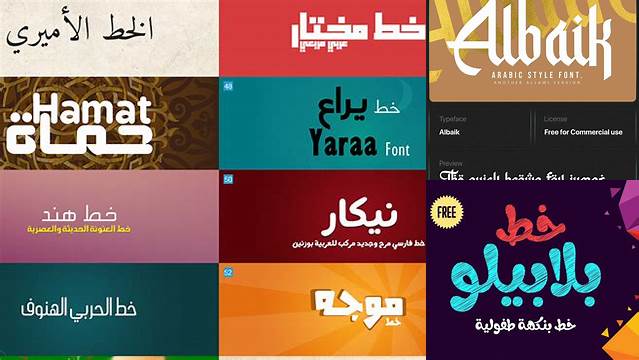
Best Arabic Fonts Pack Free Download
Hey guys! Are you looking to spice up your designs with some beautiful Arabic fonts? You've come to the right place! In this article, we'll dive into the world of best Arabic font pack free download, exploring everything from classic styles to modern twists, and how you can get your hands on them without spending a dime. Whether you're a seasoned designer or just starting out, having a great collection of Arabic fonts is essential for creating stunning visuals. So, let’s jump right in and discover the best Arabic font packs you can download for free!
1. Classic Arabic Font Styles for Free
If you're aiming for a timeless and elegant look, classic Arabic fonts are the way to go. These fonts often draw inspiration from traditional calligraphy, giving your designs a touch of authenticity and sophistication. Think of styles like Naskh, Thuluth, and Kufic – these are the classic Arabic fonts that have stood the test of time. For instance, Naskh is known for its readability and is commonly used in books and newspapers. Thuluth, on the other hand, is more ornate and often used in decorative contexts like mosque inscriptions. Kufic, with its bold and angular strokes, brings a historical and authoritative feel to any project. Finding a pack that includes these styles ensures you're equipped with the best Arabic fonts for a variety of traditional applications. Free downloads of these font packs can be a goldmine, offering a range of weights and styles within each typeface, perfect for everything from formal invitations to branding materials. Remember, the key is to use these fonts thoughtfully, considering the context and message you want to convey. They're not just about aesthetics; they're about paying homage to a rich cultural heritage. So, explore these classic Arabic fonts and let your creativity flow!
2. Modern Arabic Fonts Free Download Options
For those who lean towards contemporary design, modern Arabic fonts offer a sleek and innovative aesthetic. These fonts often blend traditional Arabic calligraphy with modern design principles, resulting in typefaces that are both stylish and functional. When looking for modern Arabic fonts free download options, you'll encounter a wide range of styles, from minimalist sans-serifs to bold and geometric designs. These fonts are perfect for branding, web design, and any project that requires a fresh, contemporary feel. Imagine using a clean, sans-serif Arabic font for a tech startup's logo or a bold, geometric font for a poster promoting a music event. The possibilities are endless! The beauty of modern Arabic fonts lies in their versatility. They can be adapted to suit various design contexts, making them a valuable addition to any designer's toolkit. Many websites offer free font packs that include a selection of modern Arabic fonts, so it's worth exploring your options. Just be sure to check the licensing terms to ensure you can use the fonts for your intended purposes. So, go ahead and dive into the world of modern Arabic fonts and discover the perfect typeface to elevate your designs!
3. Best Arabic Calligraphy Fonts Free
Arabic calligraphy is an art form in itself, and incorporating calligraphy fonts into your designs can add a touch of elegance and artistry. The best Arabic calligraphy fonts free to download often emulate the fluid strokes and intricate details of traditional calligraphy styles like Diwani and Ruq'ah. Diwani, known for its curved lines and dramatic flourishes, is perfect for creating a sense of grandeur and sophistication. Ruq'ah, on the other hand, is more condensed and practical, often used for handwriting and everyday communication. When you download a font pack that includes Arabic calligraphy fonts, you're essentially getting a piece of art that you can use in your projects. These fonts are ideal for invitations, certificates, and any design where you want to convey a sense of tradition and beauty. However, it's important to use calligraphy fonts judiciously. Overusing them can make your design look cluttered or overwhelming. Instead, try using them sparingly, perhaps for headings or decorative elements, to create a focal point and add visual interest. Finding the best Arabic calligraphy fonts can be a game-changer for your designs, adding a unique and artistic flair that sets your work apart. So, start exploring and see how these fonts can transform your projects!
5. How to Identify High-Quality Free Arabic Fonts
Not all free fonts are created equal, guys. To ensure your designs look professional, it's crucial to identify high-quality free Arabic fonts. Look for fonts that have consistent letterforms, proper kerning (the spacing between letters), and a full character set, including diacritics and punctuation. A well-designed font will be legible at various sizes and will maintain its aesthetic appeal even when scaled up or down. Another indicator of quality is the font's origin. Fonts created by reputable foundries or experienced type designers are more likely to be well-crafted and reliable. You can also look for reviews or feedback from other users to get an idea of the font's performance and suitability for different projects. Don't be afraid to test the font out in your designs before committing to it. Try using it in different contexts and at different sizes to see how it holds up. A high-quality free Arabic font will be a valuable asset in your design toolkit, allowing you to create professional-looking projects without spending a fortune. So, take the time to evaluate your options and choose fonts that meet your standards.
7. Arabic Font Packs for Graphic Design
For graphic designers, having a diverse Arabic font packs for graphic design is essential for creating visually appealing and culturally relevant designs. These font packs often include a variety of styles, from classic calligraphy to modern sans-serifs, giving you the flexibility to tackle a wide range of projects. When choosing an Arabic font pack, consider the types of designs you typically work on. If you often create branding materials, look for a pack that includes versatile fonts that can be used for logos, websites, and print materials. If you're more focused on editorial design, a pack with a selection of readable and elegant fonts might be a better choice. It's also important to think about the cultural context of your designs. Using the right font can help you convey the right message and connect with your target audience. For example, a traditional calligraphy font might be appropriate for a formal event invitation, while a modern font might be better suited for a tech-related project. Investing in a high-quality Arabic font pack is an investment in your design skills. It can help you create more impactful and professional-looking designs that resonate with your audience. So, take the time to explore your options and choose a pack that meets your needs and aesthetic preferences.
8. Free Arabic Fonts for Web Design
Web design requires fonts that are not only visually appealing but also optimized for on-screen readability. Free Arabic fonts for web design should be clear, legible, and render well across different browsers and devices. Google Fonts is an excellent resource for finding web-friendly Arabic fonts, as it offers a wide selection of open-source fonts that are specifically designed for use on the web. These fonts are typically optimized for performance and will load quickly on your website. When choosing Arabic fonts for web design, consider the overall style and tone of your website. A clean, sans-serif font might be a good choice for a modern and minimalist website, while a more traditional font might be appropriate for a website with a classic or cultural theme. It's also important to consider the hierarchy of your content. Use different font sizes and weights to create visual interest and guide the reader's eye. For example, you might use a bold font for headings and a lighter font for body text. Remember, the goal is to make your website easy to read and visually engaging. By choosing the right free Arabic fonts, you can enhance the user experience and create a website that looks professional and polished.
30. Tips for Choosing the Right Arabic Font Pack
Choosing the right Arabic font pack can significantly enhance your design projects, but it requires careful consideration. Tips for choosing the right Arabic font pack include assessing your project's needs and aesthetic goals. Consider the type of designs you typically create, such as branding materials, websites, or print publications, and select a font pack that offers a variety of styles suitable for those contexts. Look for font packs that include a range of weights and styles within each typeface, providing flexibility and consistency in your designs. Ensure that the fonts are legible and render well in both print and digital formats. Check the licensing terms to confirm that the fonts can be used for your intended purposes, whether commercial or personal. Evaluate the quality of the fonts, paying attention to kerning, spacing, and character set completeness. Reading reviews and seeking recommendations from other designers can also help you make an informed decision. By following these tips for choosing the right Arabic font pack, you can select a collection that enhances your creativity and professionalism.